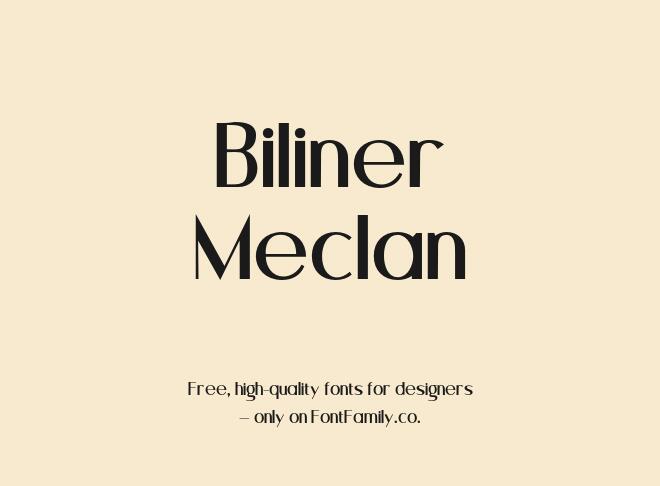
Biliner Meclan Font
Introducing Biliner Meclan Font, a modern and geometric typeface that exudes simplicity and sophistication. Designed by the renowned Meclan Foundry, this font is a perfect blend of elegance and functionality, making it an excellent choice for a vast array of design projects. Its crisp, clean lines and well-balanced proportions make it highly legible even at smaller sizes, while its distinctive character set adds a unique flair to any design. Compared to other fonts in the genre, Biliner Meclan stands out with its minimalistic approach and subtle charm. It's a great choice for branding, web design, print projects, and more. Experience the versatility and appeal of Biliner Meclan Font today.